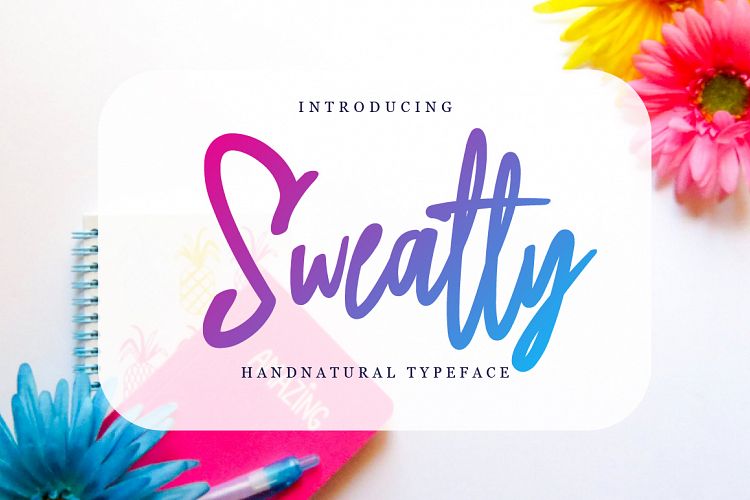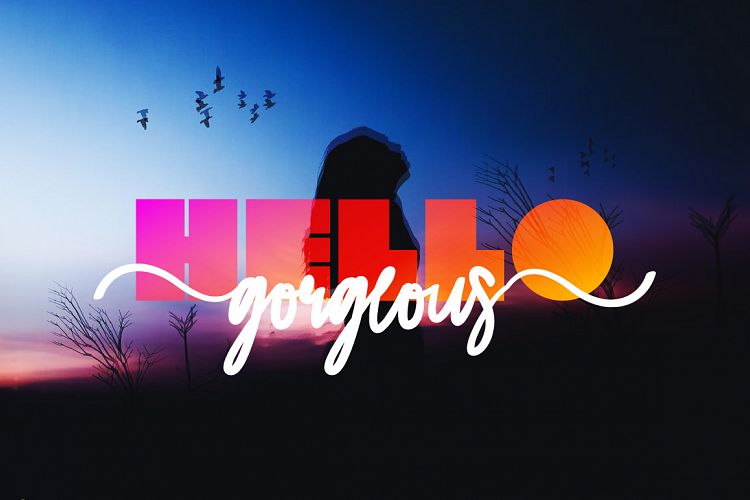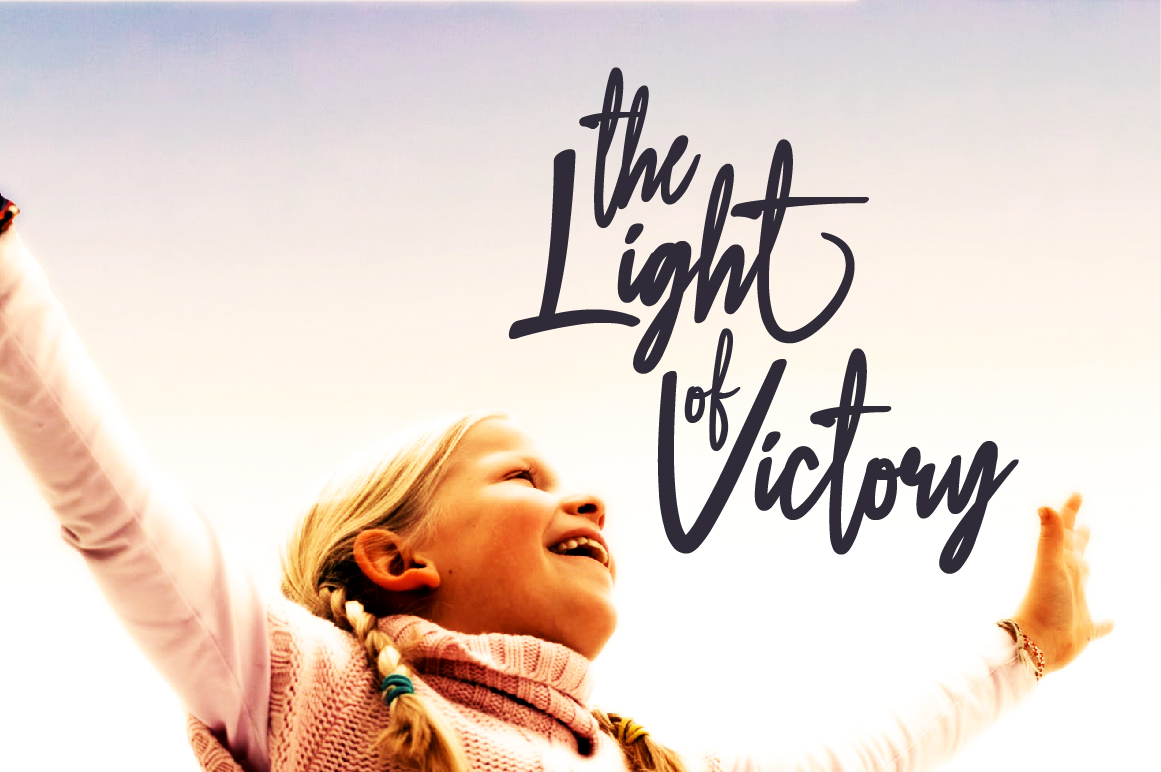
Sweatty Handwritten Font
Introduce our new Handnatural Typeface
He was named Sweatty
This font can be applied to any design, such as logo design, branding, poster, wallpaper, wedding, invitation, quote and various other design needs. very suitable for designing your own brand and for other branding designs, this font looks perfect on all printing techniques, foil embossing, embroidery, and more.